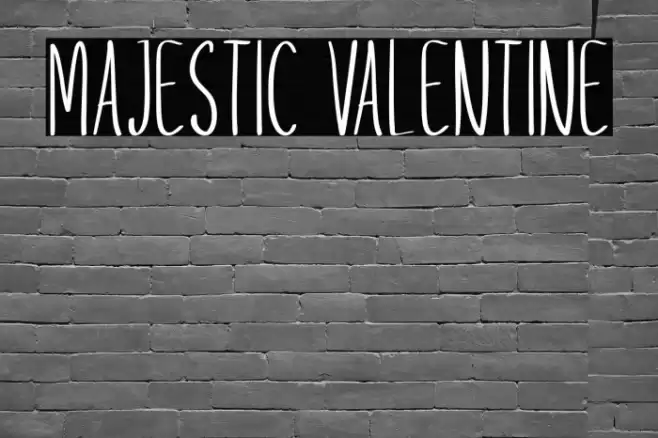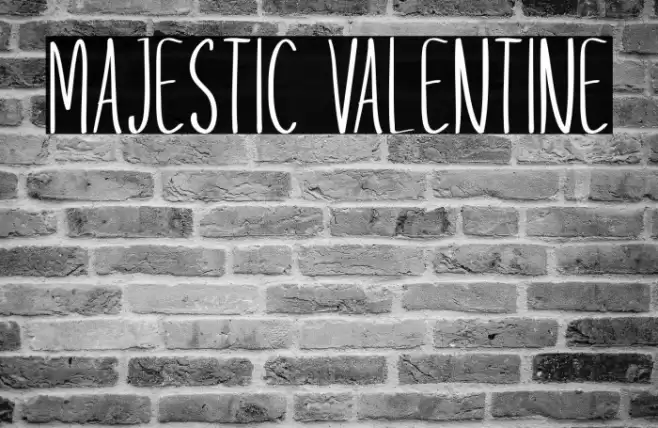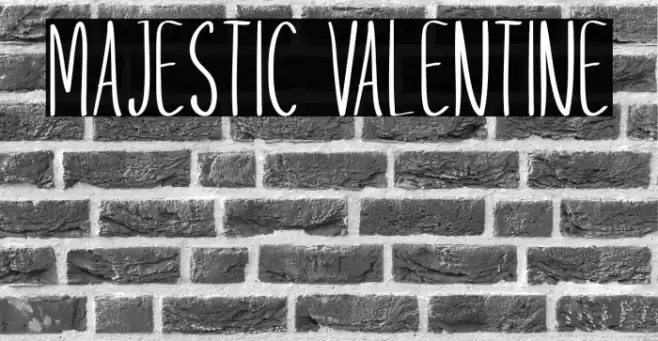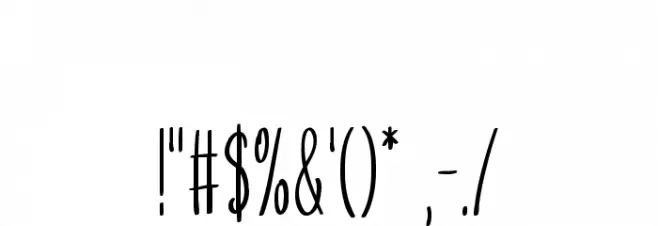
Majestic Valentine Font
Majestic Valentine Description
This font features a playful and whimsical style with tall, narrow letters that have a hand-drawn appearance. The characters are slightly irregular, giving them a unique and artistic flair. The uppercase letters are consistent in height, while the lowercase letters maintain a similar width, creating a harmonious look. The strokes are moderately thick, and the overall design is clean and easy to read, making it suitable for various creative projects. The special characters complement the alphabet with a similar quirky style, adding to the font's charm.
A playful, hand-drawn font with tall, narrow letters and a whimsical style from Regular fonts.
- Proposed Projects: Ideal for greeting cards, children's books, playful branding, and creative posters.